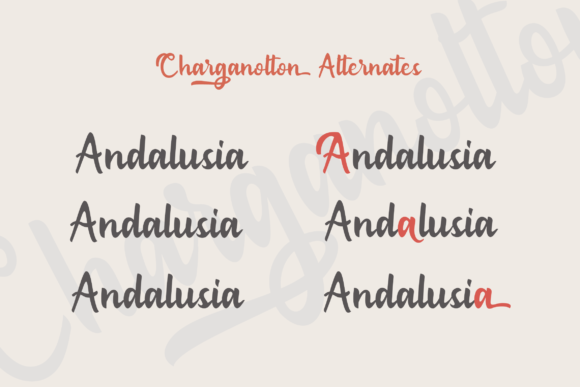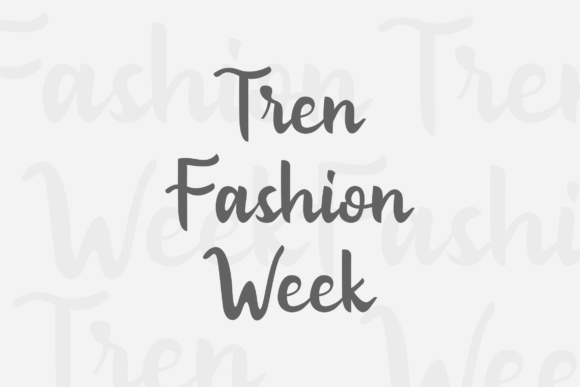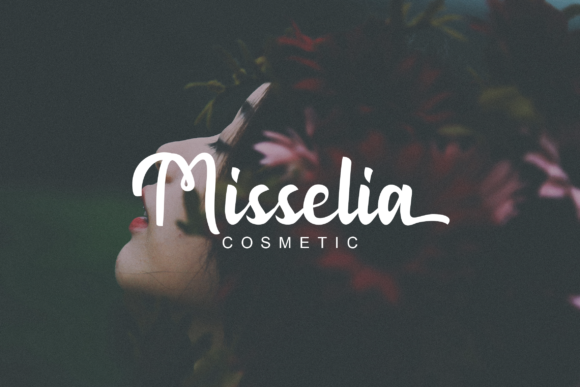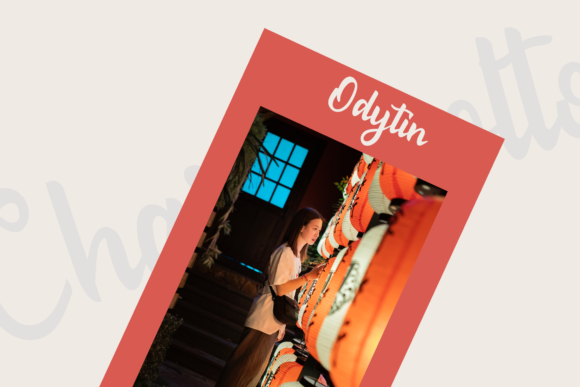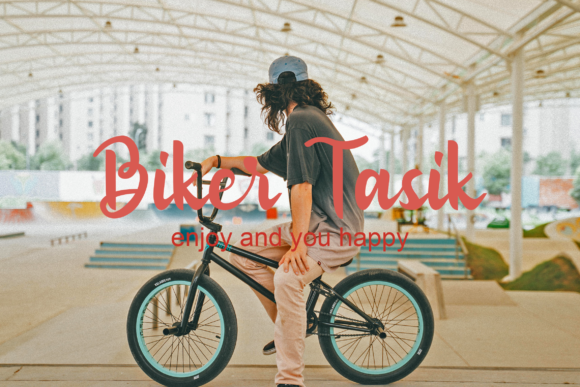
Charganolton Font
Charganolton is a playful and cute script font that will turn any design idea into an authentic piece of art. It will deliver any message with grace, confidence, and style.